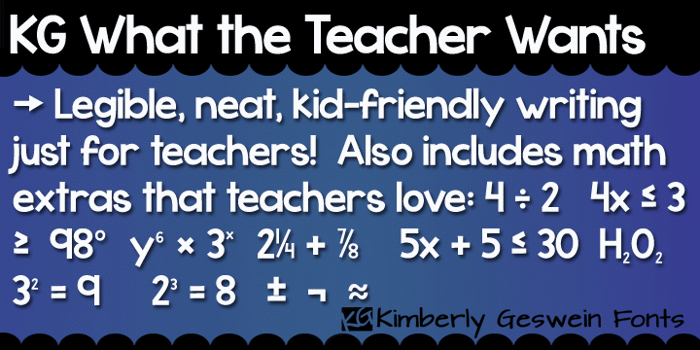
KG What the Teacher Wants Font
This font is exactly "What the Teacher Wants"- it is neat, legible, friendly, and contains enough glyphs to cover 86 languages and little extras like math symbols!
It's really awesome! And very useful!
AMAZING FONT> SIMPLE BUT SWEETS 😄
Yes I'm so using this for my Math Project 😃
yo cool font
Now I love this font so much! I use this for type anything 😄
Love it! The right "a" and "t" and spacing that makes sense. Perfect for primary grades 😄 Thanks!
Thank you, thank you! I downloaded 10 of your fonts and am so excited. These will help me design my own worksheets. People are charging money on Teachers Pay Teachers and I have a feeling some of these may be yours. As an educator and math teacher, I love modeling and being creative and you have just made my job so much easier. Last year I was leaving blanks and writing in exponents or drawing figures for modeling word problems. You are a genius!
I 'll be using on my Touhou comic!!!